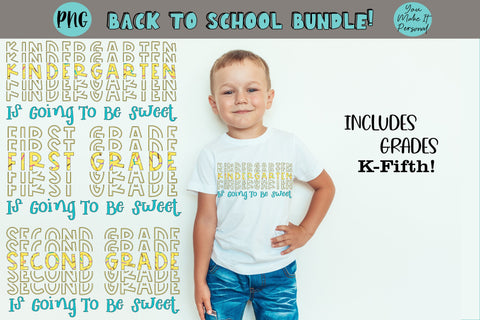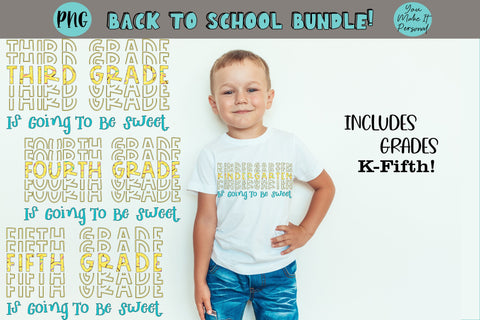
Back To School Sublimation Design Bundle, Kindergarten through 5th Grade, Echo Font with Sprinkles, Grade is going to be sweet!
This echo font set is perfect for sublimating shirts, bags, cups and more! The sprinkles in the design give it a unique touch and go with the "Grade level" is going to be sweet saying.